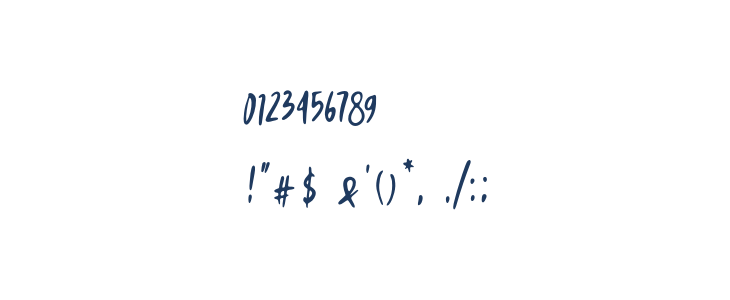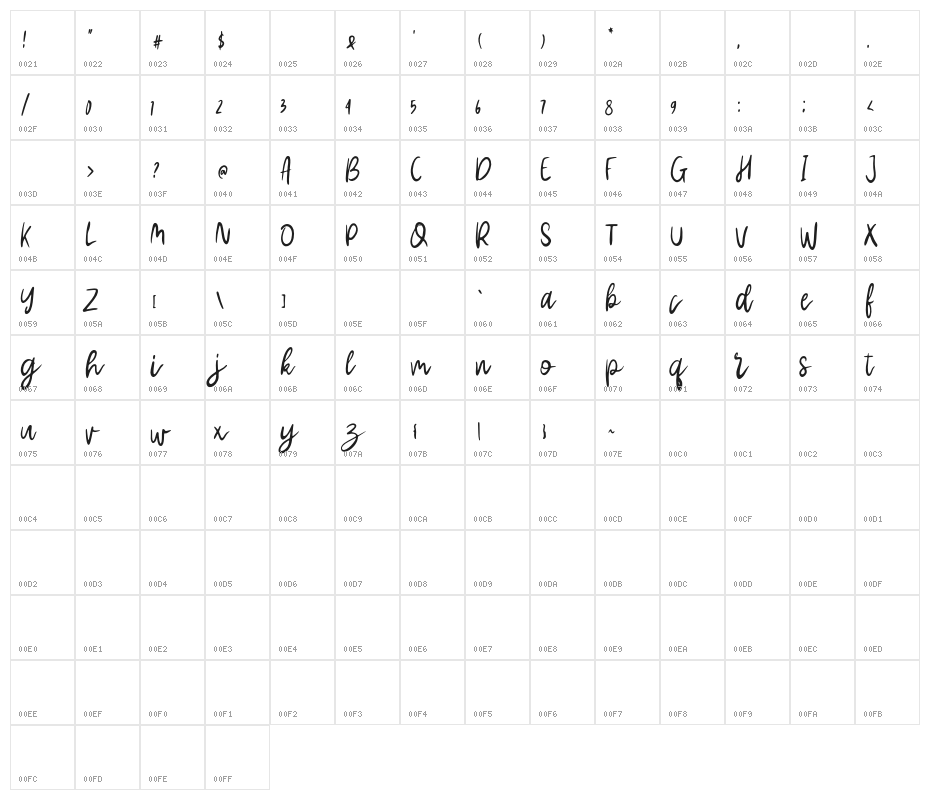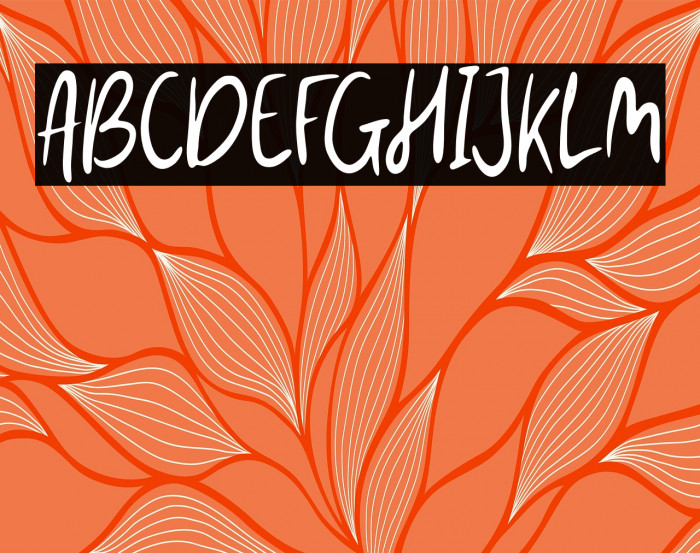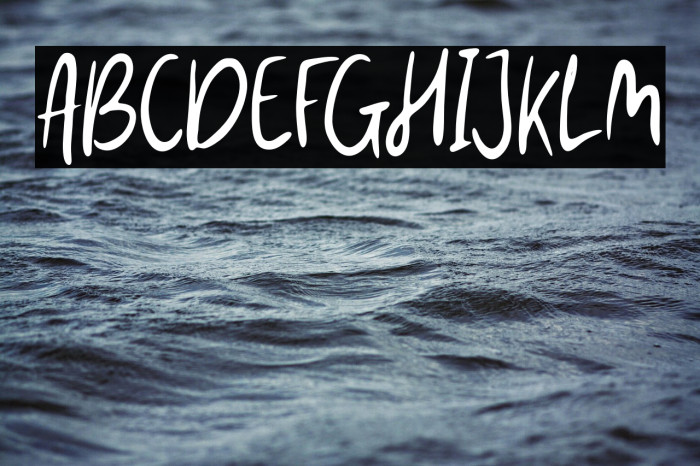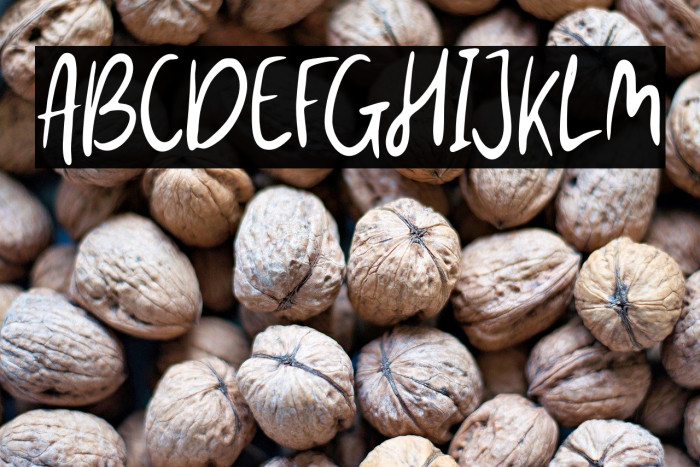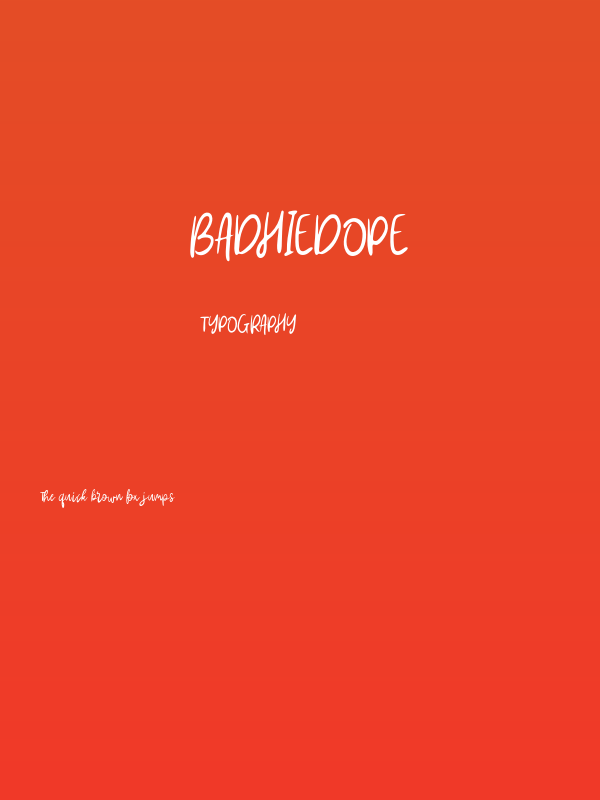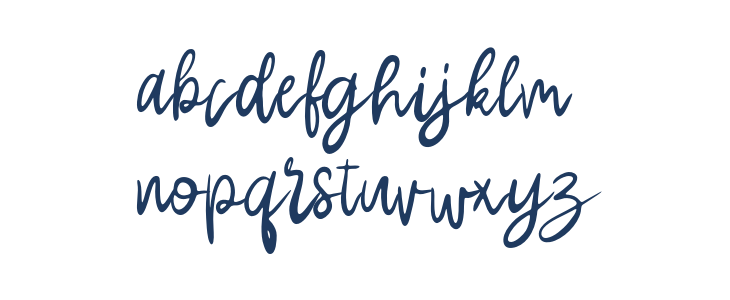
BadhieDope Font
BadhieDope Description
This font features a lively and expressive handwritten style, characterized by its fluid and dynamic strokes. The letters are slightly slanted, giving it a casual yet elegant appearance. The uppercase letters are bold and prominent, while the lowercase letters maintain a consistent flow with a touch of whimsy. The numbers and special characters are crafted to match the overall aesthetic, ensuring a cohesive look. This font's playful nature makes it suitable for projects that require a personal touch or a creative flair.
Use CaseLogos, Headlines, Invitations
Proposed ProjectsIdeal for greeting cards, invitations, branding, social media graphics, and creative projects that require a personal touch.